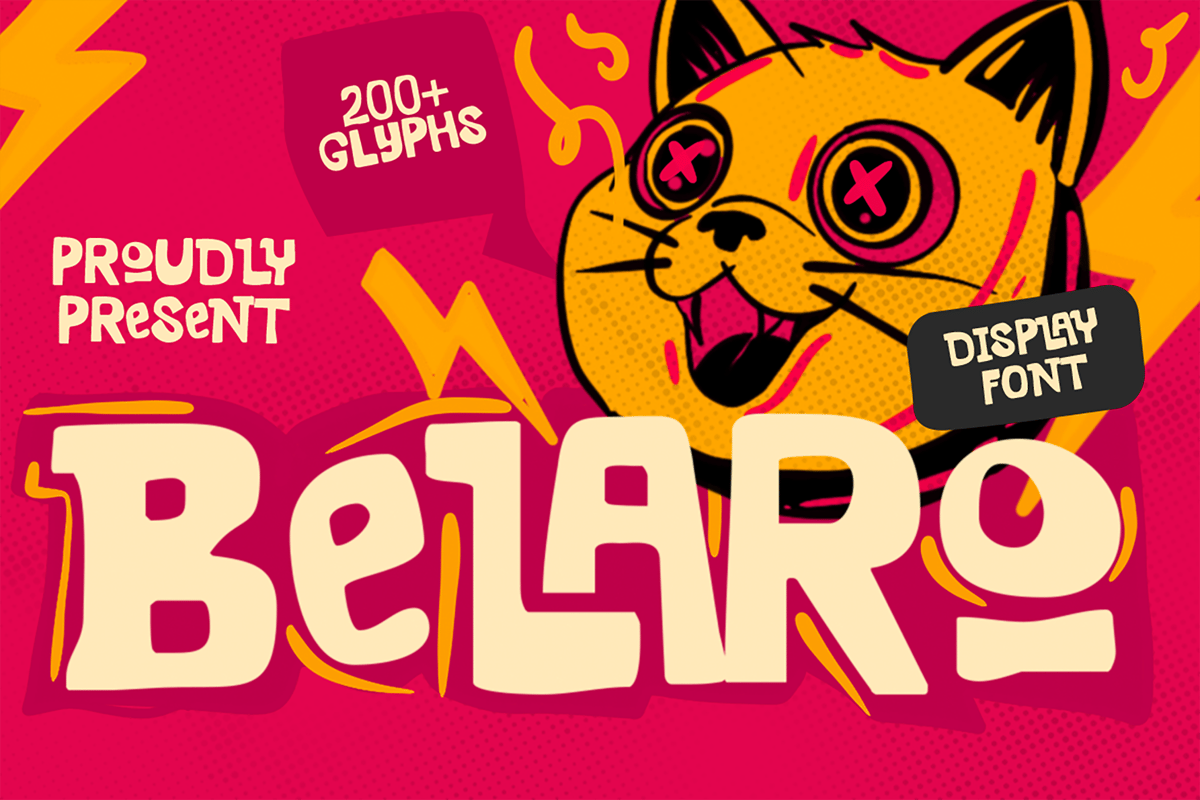
Belaro - Food Font
Transform your food and beverage designs with Belaro – a bold, playful display font that serves up serious personality and visual impact. Drawing inspiration from vibrant street food culture, cozy coffee shops, and energetic festival atmospheres, this expressive typeface combines bold charm with cartoon-style appeal. Belaro delivers the perfect recipe for designs that demand attention while maintaining a friendly, approachable vibe. Perfect For: Food & beverage branding Coffee shop & café menus ...